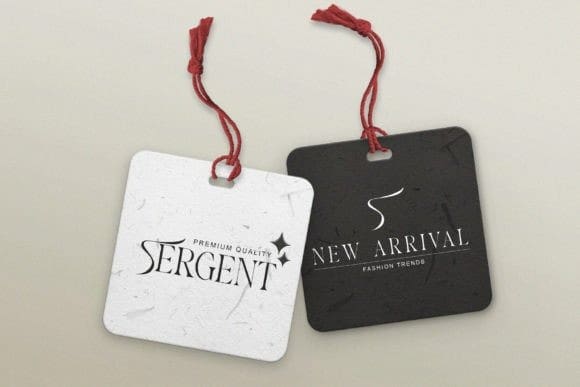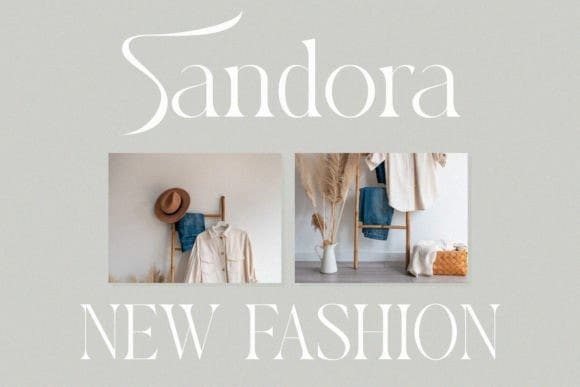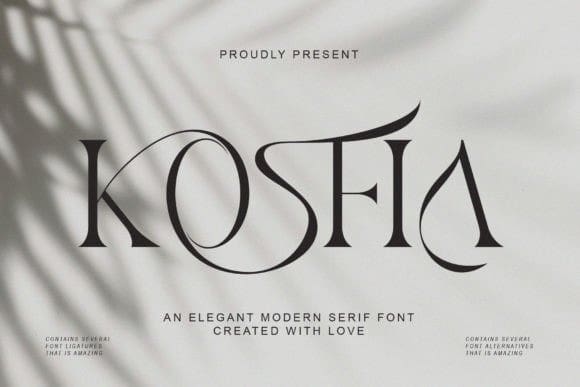
Kosfia Font
Kosfia Font a modern and minimalist serif typeface, Kosifa brings a clean and classy style to your projects such as websites, modern logos, brand identities, social media quotes, wedding stationery and many more needs!